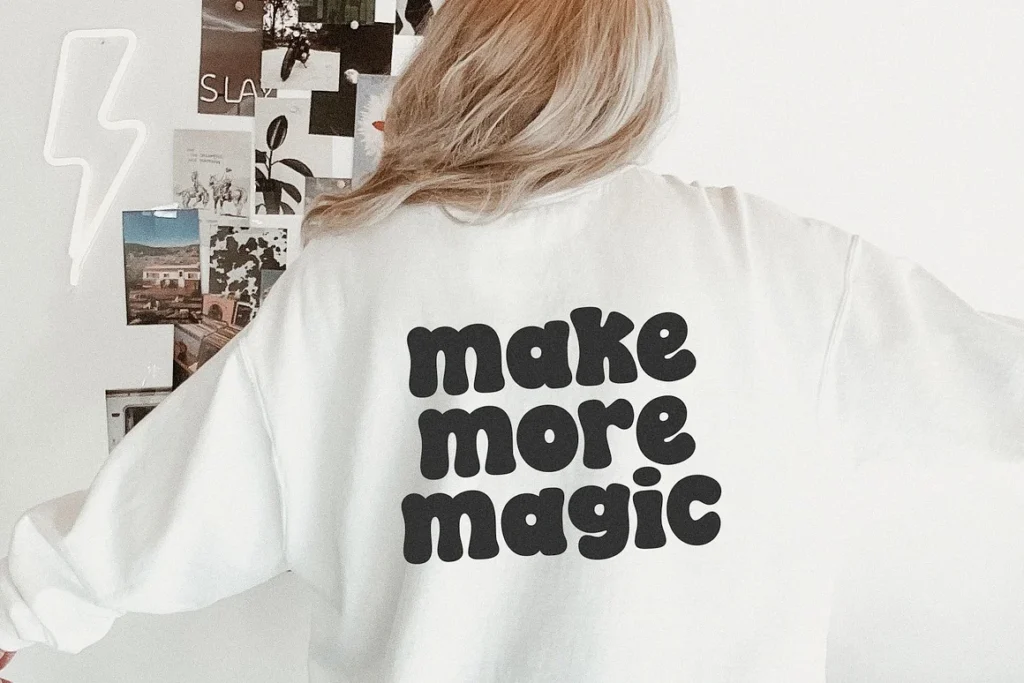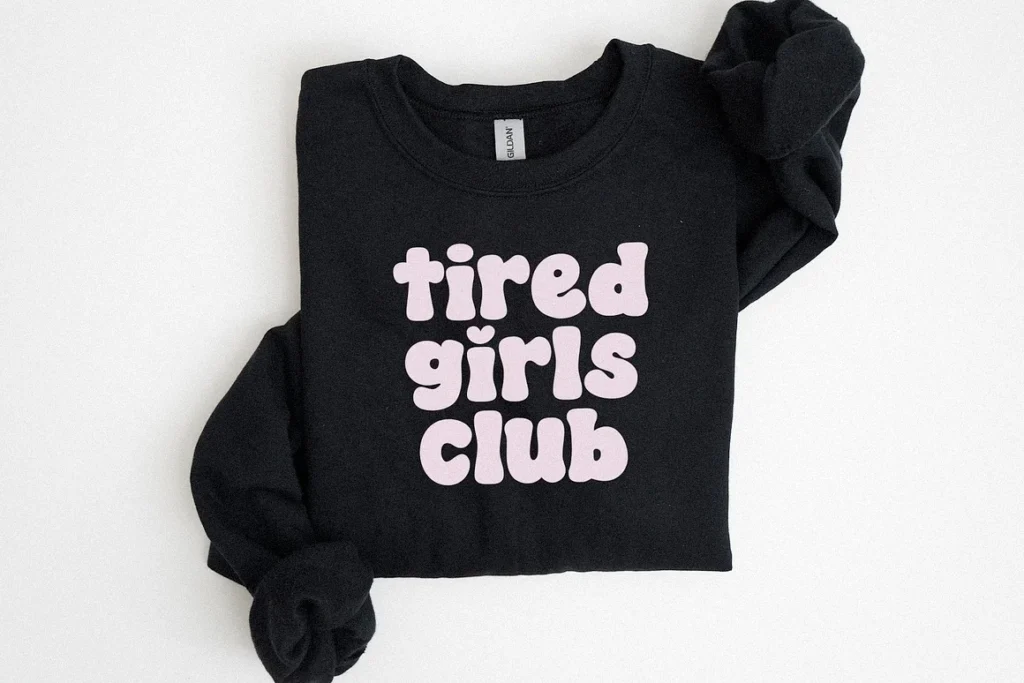
Elevate your creative projects with the Social Club Cute Handwriting Bubbly Font, a delightful typeface that combines charm and playfulness in every letter. This font features a unique bubbly design that mimics the warmth of handwritten text, making it perfect for a variety of applications.
Invitations and greeting cards to social media graphics and branding materials. Its rounded edges and whimsical style add a touch of personality, ensuring your messages stand out with a friendly and inviting tone. With easy readability and versatile character options,
Social Club Cute Handwriting Bubbly Font is an essential addition to any designer’s toolkit, allowing you to express your creativity effortlessly while captivating your audience. Transform your designs and make a lasting impression with this enchanting font that embodies joy and creativity.